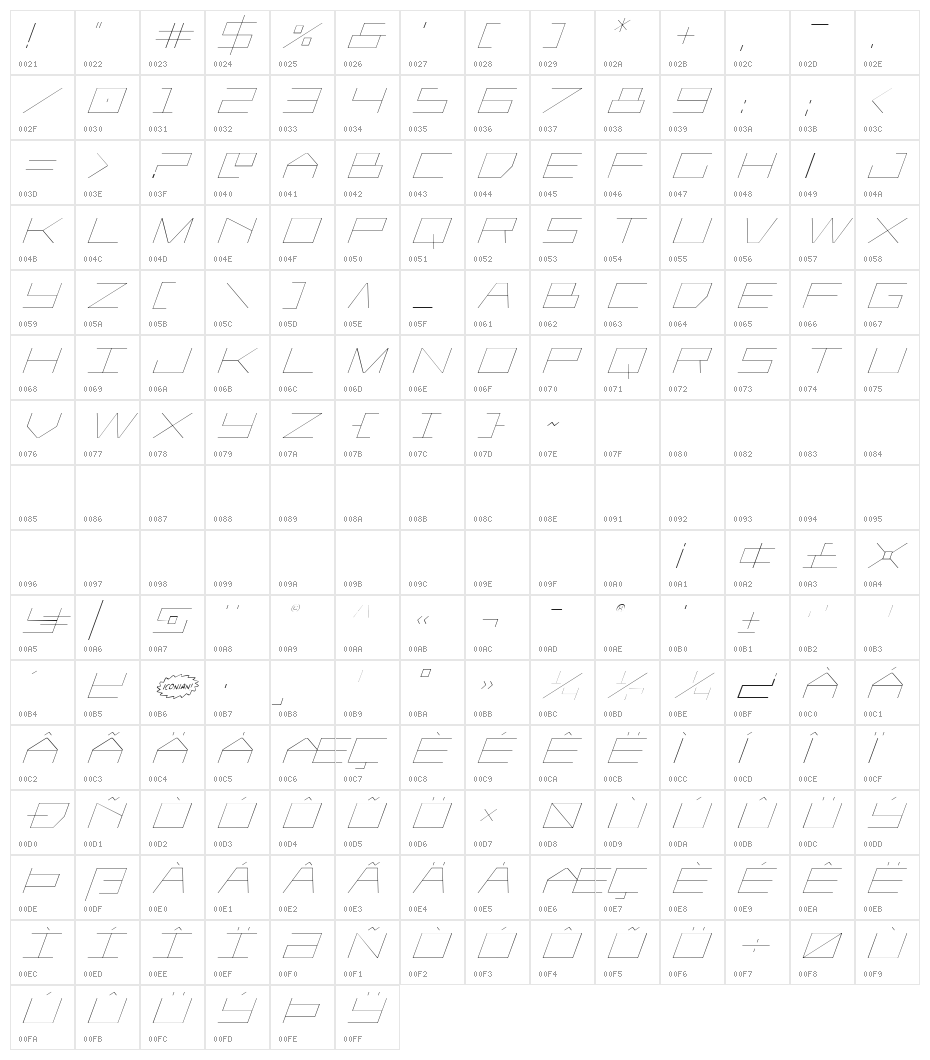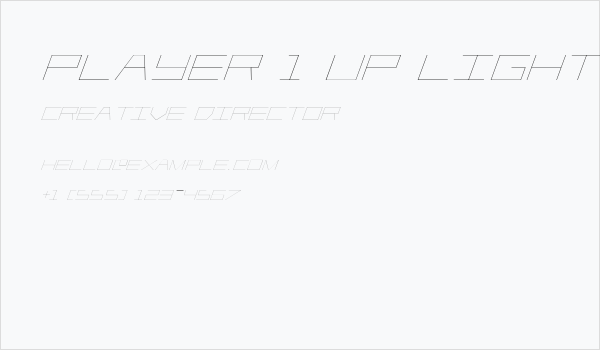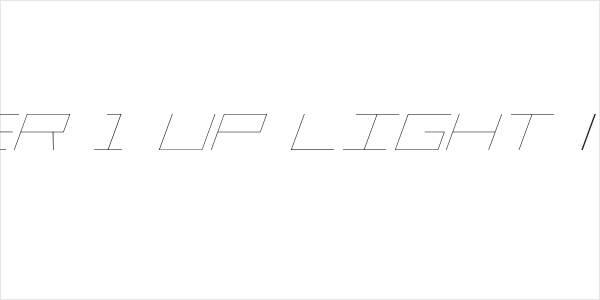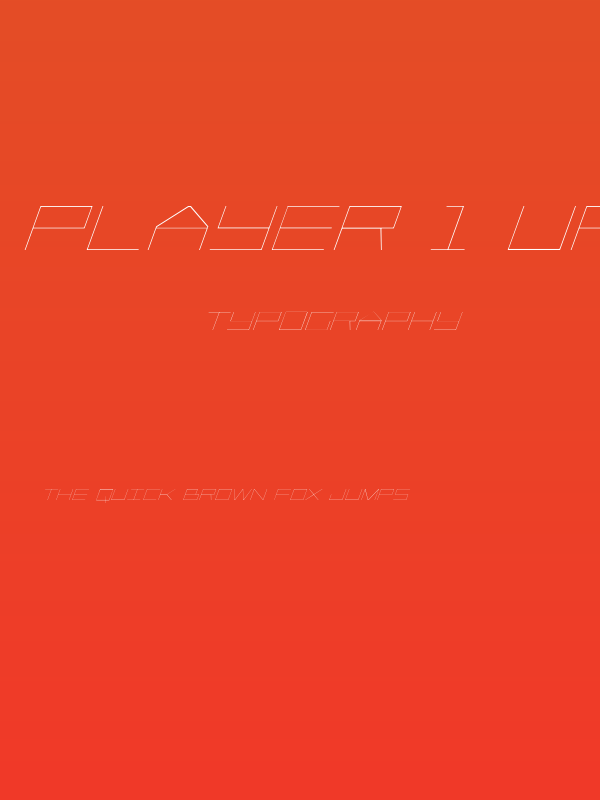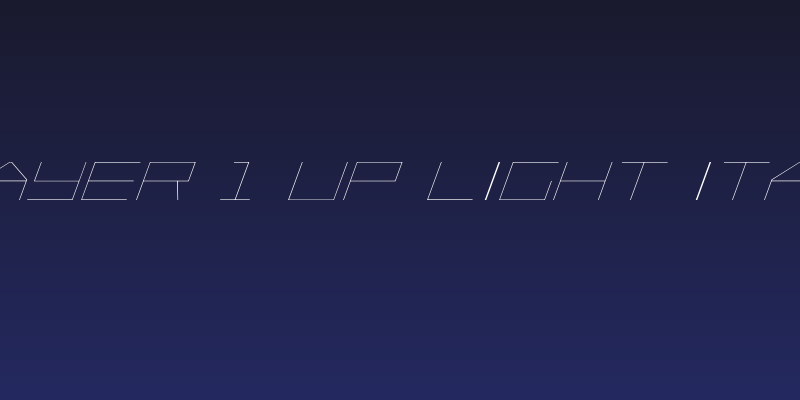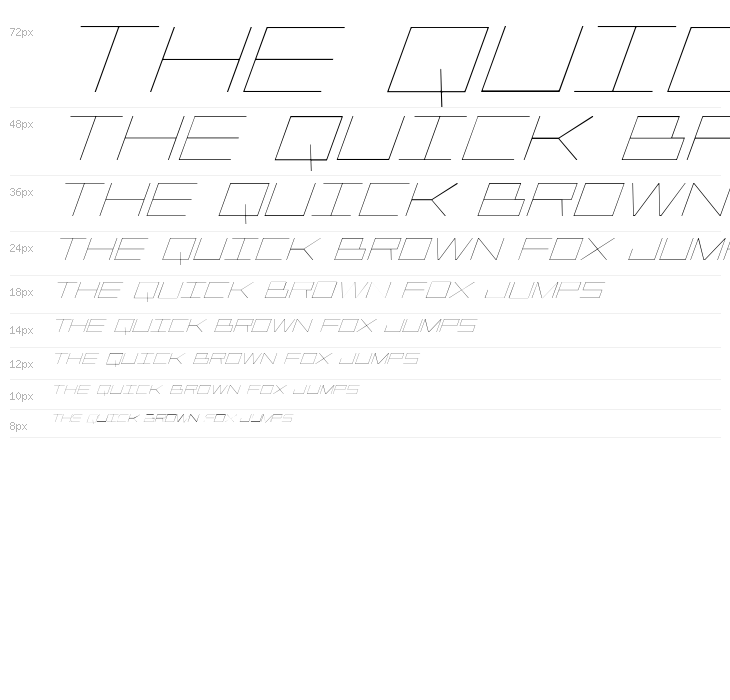
Player 1 Up Light Italic Font
Player 1 Up Light Italic Description
This font features a futuristic and geometric design with a light and airy feel. The characters are constructed with thin lines and sharp angles, giving it a sleek and modern appearance. The italic style adds a dynamic and forward-leaning aspect, enhancing its contemporary look. The uppercase and lowercase letters maintain a consistent style, with a uniform stroke width that contributes to its minimalistic aesthetic. The numerals and special characters follow the same design principles, ensuring a cohesive visual identity across all glyphs.
| Use Case | Logos, Headlines, Digital interfaces |
| Proposed Projects | Ideal for sci-fi themed projects, tech branding, digital interfaces, and modern advertising. |